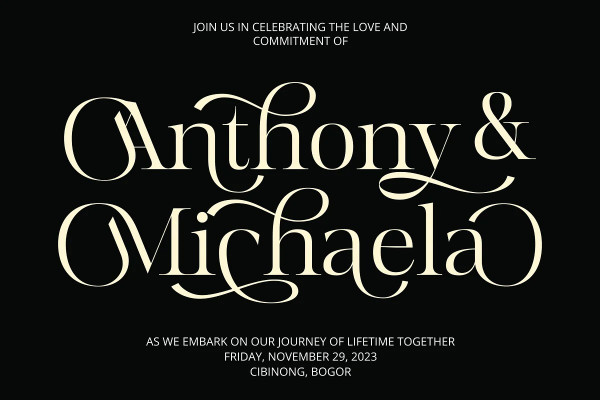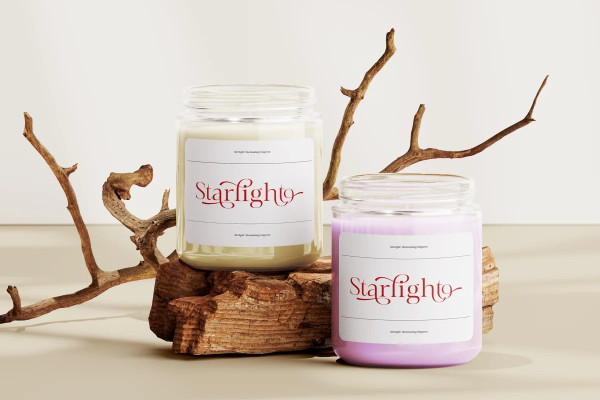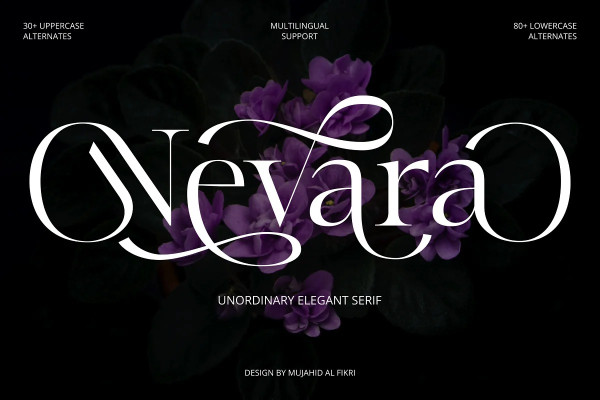
Nevara Font
Nevara Font is an elegant serif font that combines timeless sophistication with unwavering firmness. It strikes a harmonious balance between simplicity and subtle flourishes, making it a versatile choice for various design applications. Inspired by small part of Fractur Calligraphy, Nevara offers over 30 Uppercase alternates and more than 80 Lowercase alternates, allowing for extensive customization and unique typographic expressions. It also provides multilingual support and the flexibility to access alternates by adding numbers after letters or via the Private Use Area, making it a go-to choice for projects that demand both style and functionality.
Nevara’s design ethos captures understated elegance, making it perfect for logo, branding, and creative projects that require a touch of sophistication. Its extensive alternate character set and international language support ensure adaptability to diverse design needs. Whether you seek to infuse your text with a subtle twist or create a bespoke typographic experience, Nevara’s versatile features and firm yet elegant aesthetic make it a top choice for designers and typographers alike.